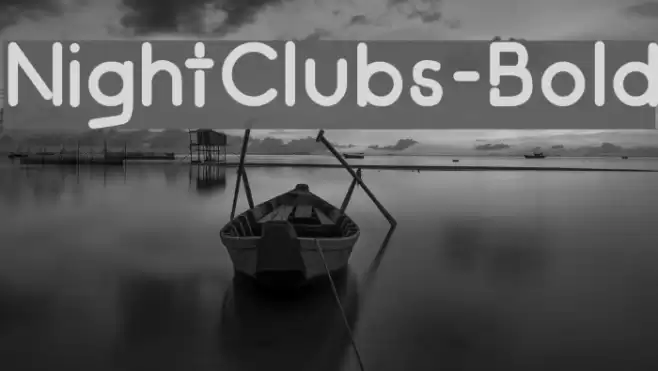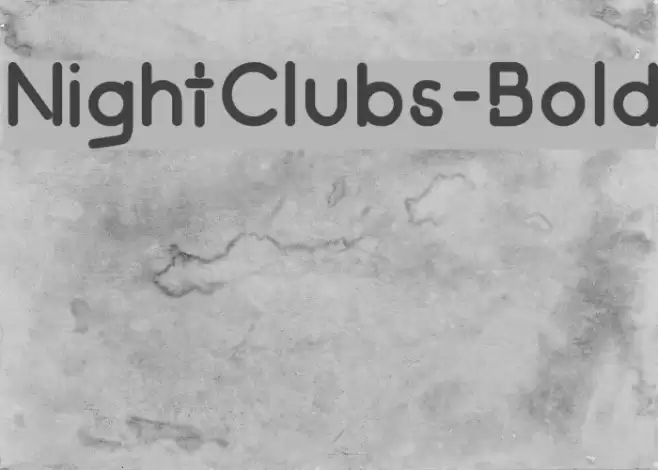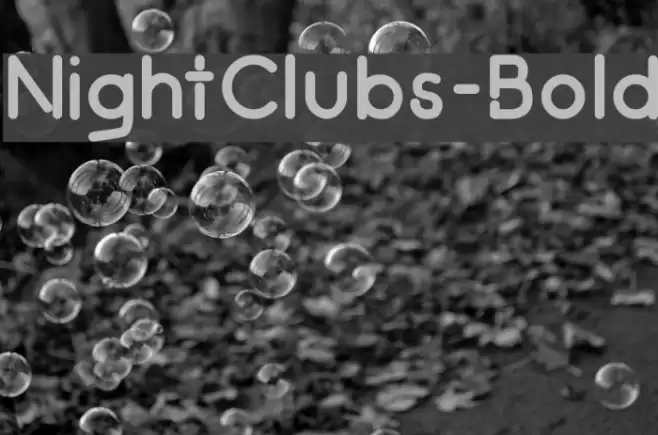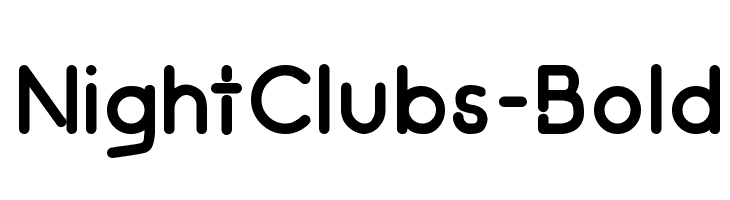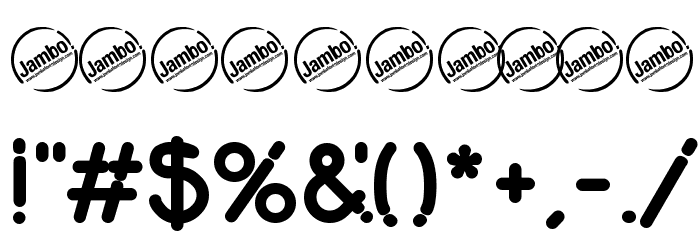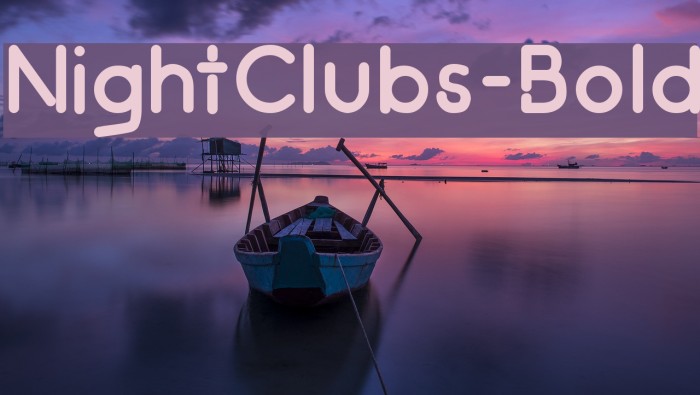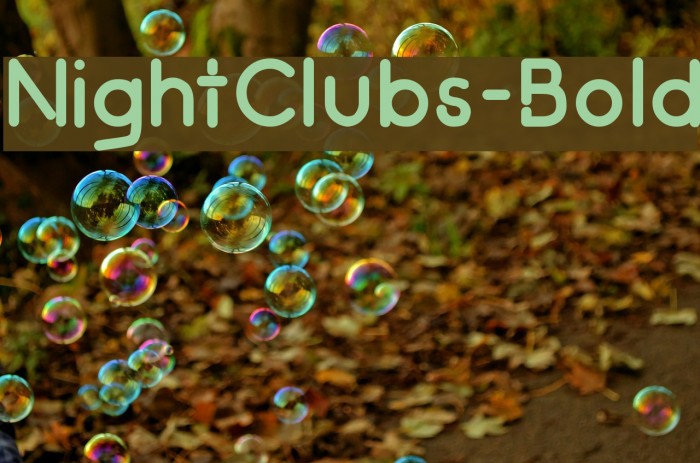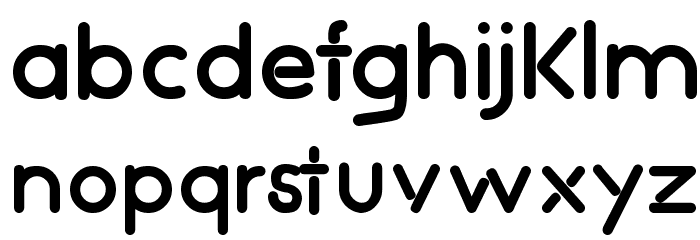
NightClubs-Bold Font
NightClubs-Bold Description
This font features a bold and playful design with rounded edges and a modern aesthetic. The characters are uniform in weight, providing a consistent and cohesive look. The uppercase and lowercase letters maintain a similar style, with slight variations in curvature and stroke endings. The numerals and special characters are designed to match the overall playful and bold theme, making them suitable for attention-grabbing designs. The font's rounded and smooth appearance gives it a friendly and approachable feel, ideal for creative and informal applications.
A bold, playful font with rounded edges and a modern aesthetic from Uncategorized fonts.
- Proposed Projects: Ideal for branding, posters, event invitations, and playful graphic design projects.